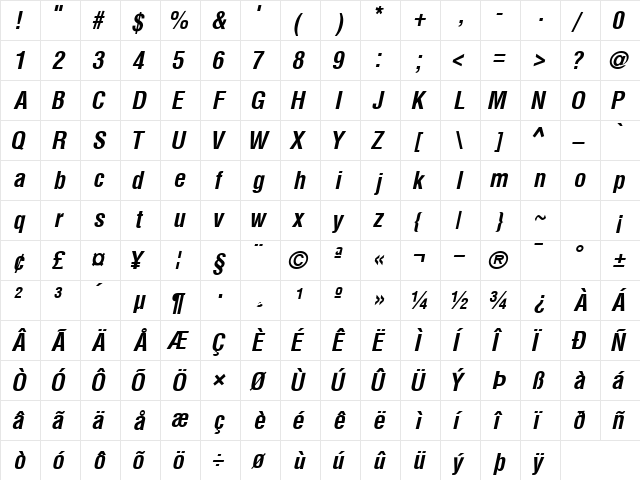
ContextCondSSK Bold Italic
Design Context for ContextCondSSK Typeface
ContextCondSSK offers clean, dependable letterforms without strong stylistic allegiance, making it a practical choice for designers who need flexibility. The slanted form adds forward momentum and visual energy. The heavy weight commands attention and anchors typographic hierarchies. Its narrow stance lets it pack a punch even in space-constrained designs.
Pro Tip: Try ContextCondSSK for annotation and caption copy alongside an upright companion — the contrast in angle creates a dynamic but ordered typographic system.